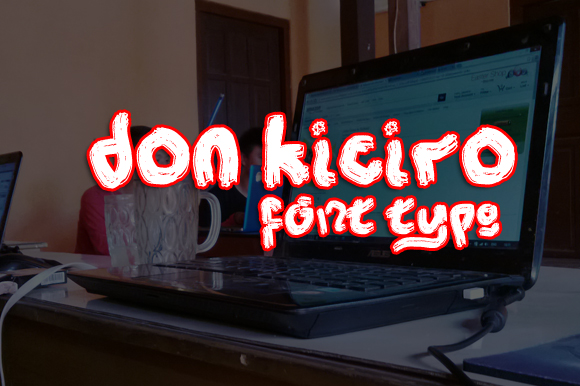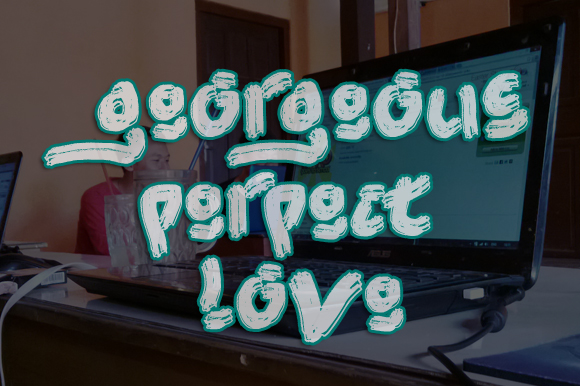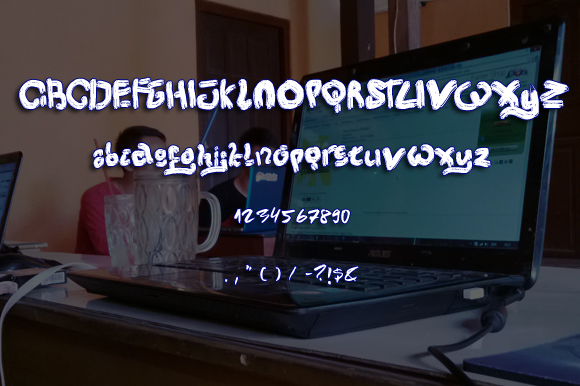
HomeScript FontsDonkiciro Font Script Fonts Donkiciro Font FacebookXPinterestWhatsApp Donkiciro Font Poster 2 Donkiciro Font Poster 3 Donkiciro Font Poster 4 About Donkiciro Font Donkiciro, a hand painted brush font. DOWNLOAD ON CREATIVE FABRICAThis font is sold and delivered by Creative Fabrica. Font Canyon may earn a commission if you buy through this link. People also explored Clara Sherly Font Pestra Font Oligun Font Subtle Curves Font Ruthen Back Font Collathives Font Calmius Font Faradilla Queen Font Signature Flavour Font 289 0 TagsDonkiciro Font Previous articleBubble Ras Full FontNext articleDoelkenyoet Font LEAVE A REPLY Cancel reply Comment: Please enter your comment! Name:* Please enter your name here Email:* You have entered an incorrect email address! Please enter your email address here Website: Save my name, email, and website in this browser for the next time I comment. Personal Use Free Fillguy Font Personal Use Free Read more about this font Imelda Personal Use Free Read more about this font Aldenburg Personal Use Free Read more about this font Loving You Personal Use Free Read more about this font BLOG To increase your work productivity, choose the most readable fonts. In today's fast-paced work environment, where digital communication and information consumption are integral to our daily routines, the choice of fonts can significantly impact... Transform Your Website: Elevate Your Typography with 7 Best Web Font Generators Best Fonts for T-Shirt Design – Top 2025 Picks 5 Fonts That Will Dominate Design Trends in 2026